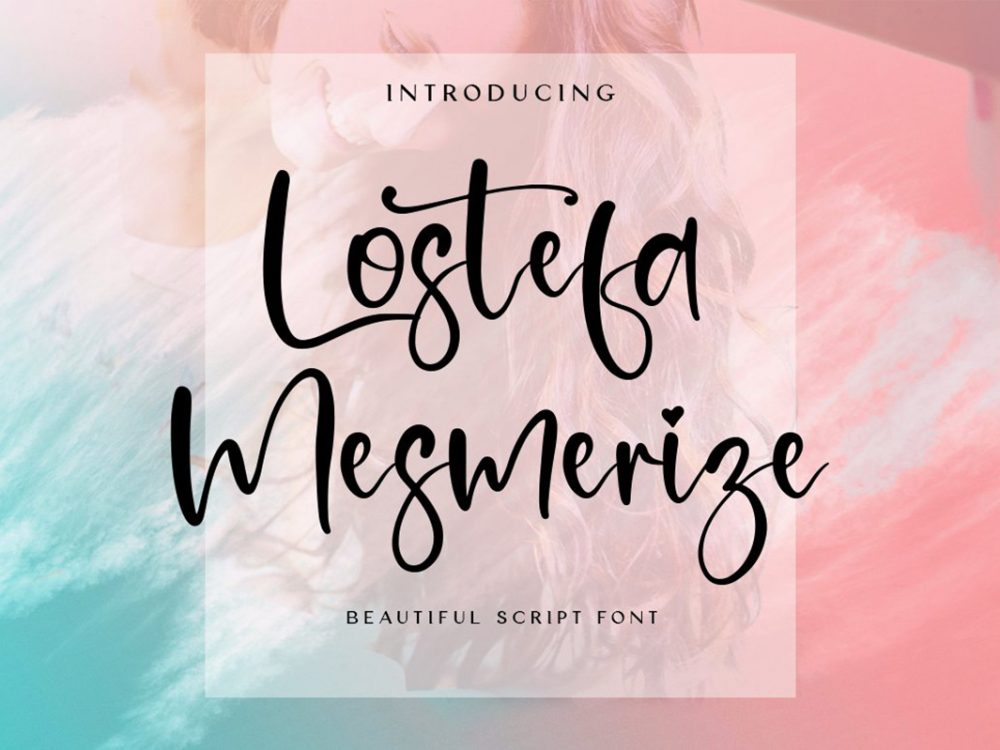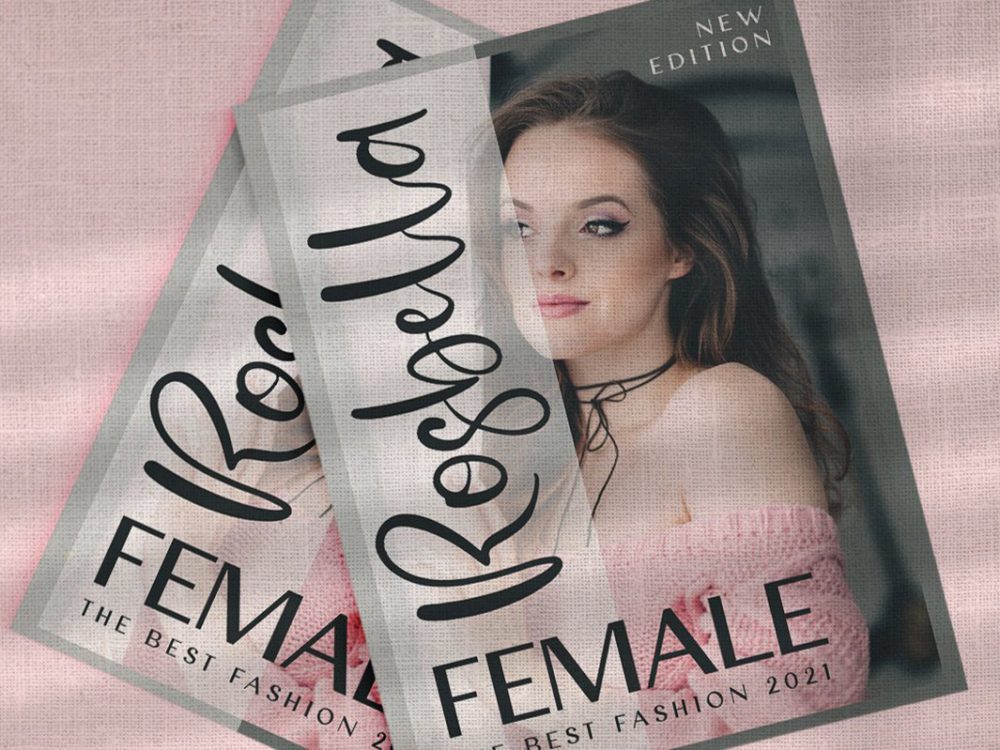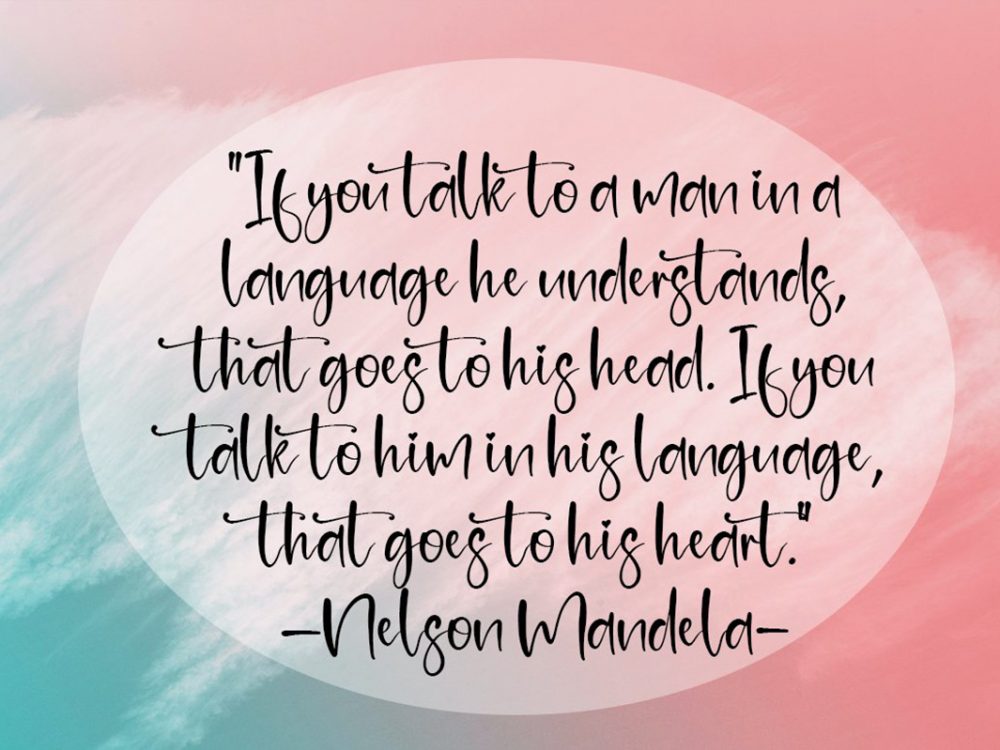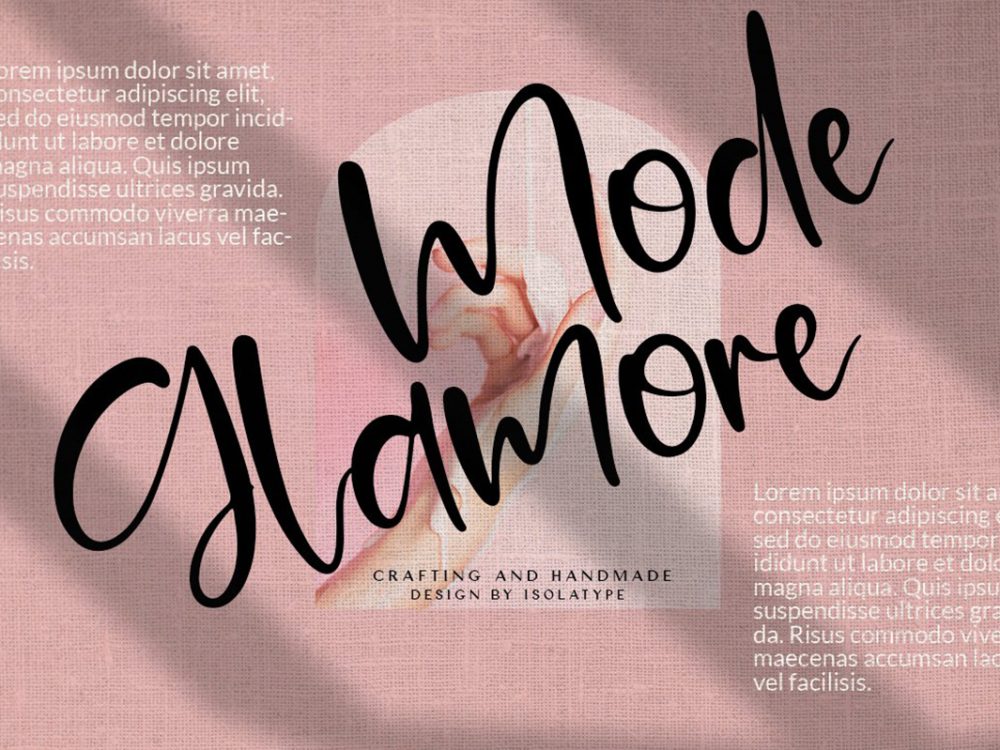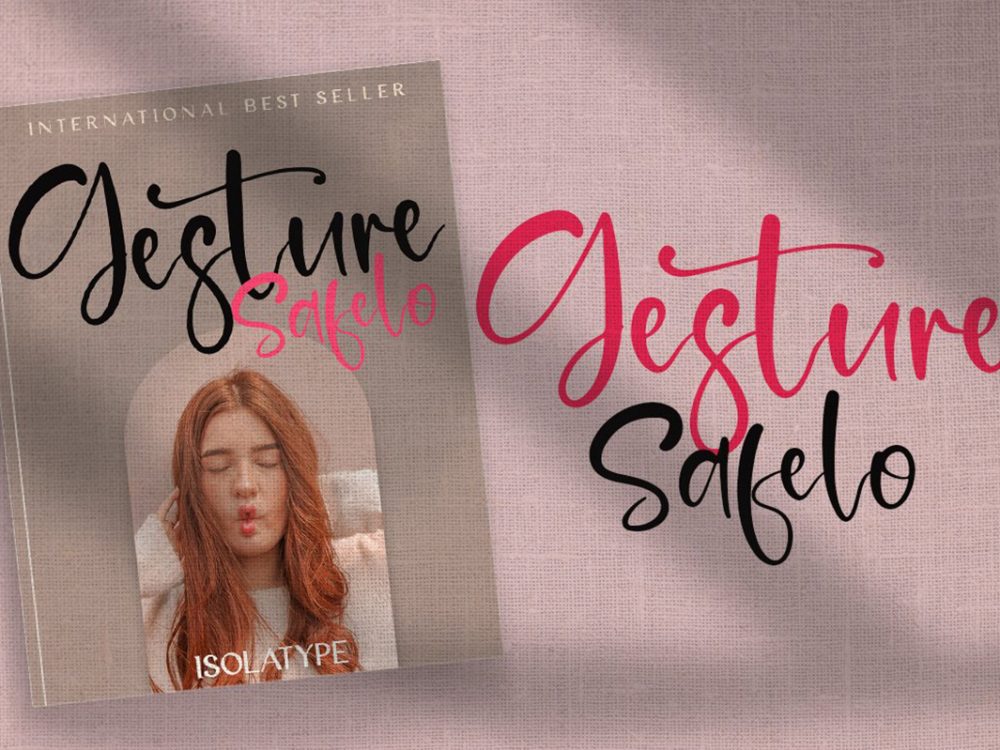
Lostefa Mesmerize Free Font
Lostefa Mesmerize Free Font is a beautiful handwritten font that simulates detailed brush writing and is very suitable for creating various design projects that require a scripted font. These can be posters, invitations, cards, branding, flyer prints, etc. If you wish to access more features and use them for commercial work please buy the full version.